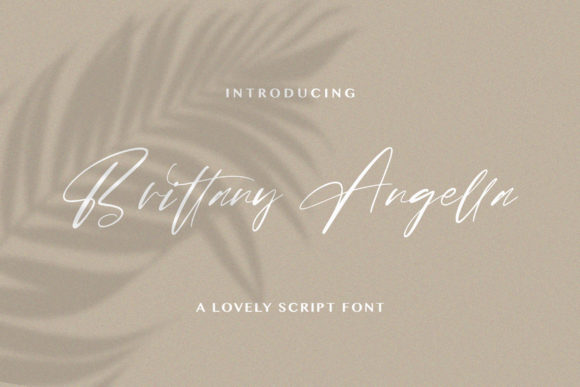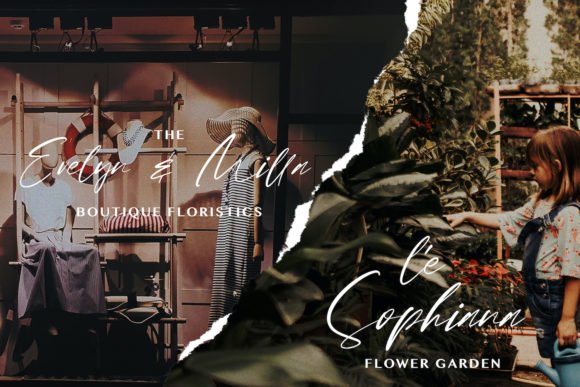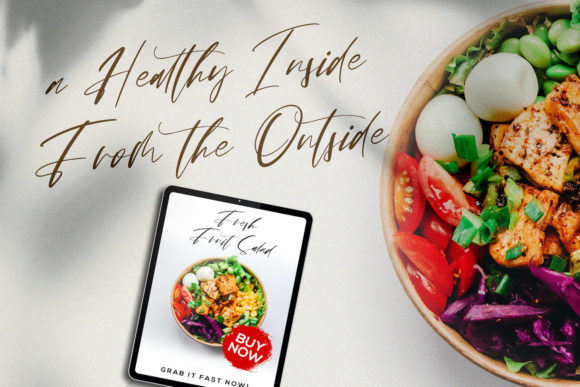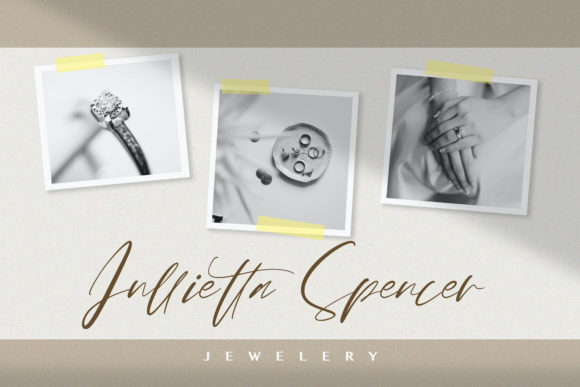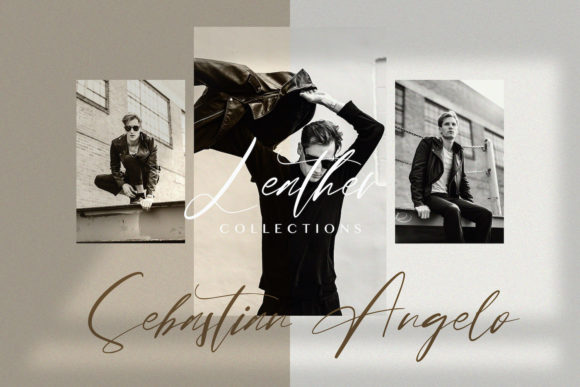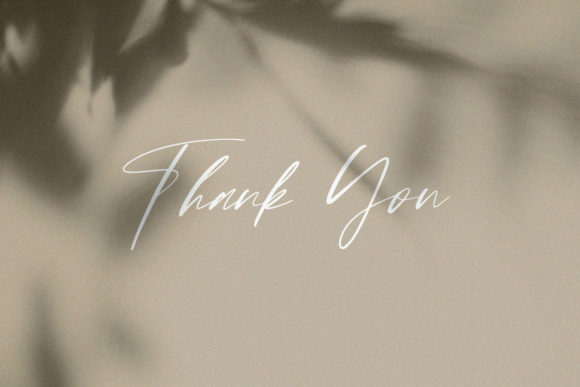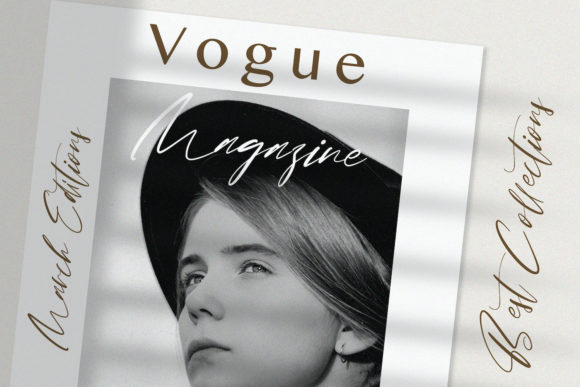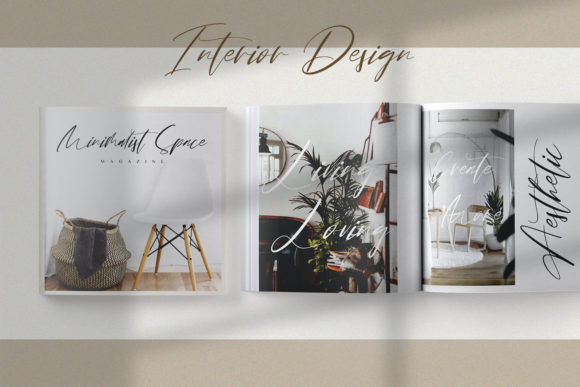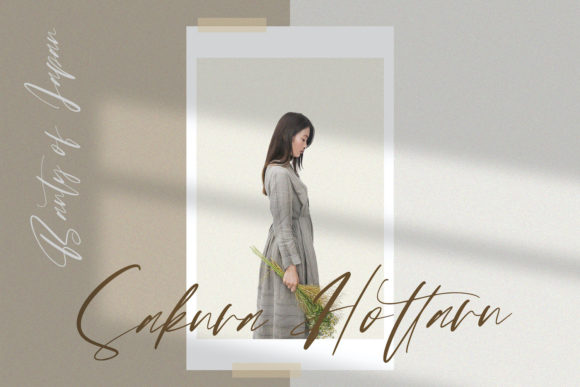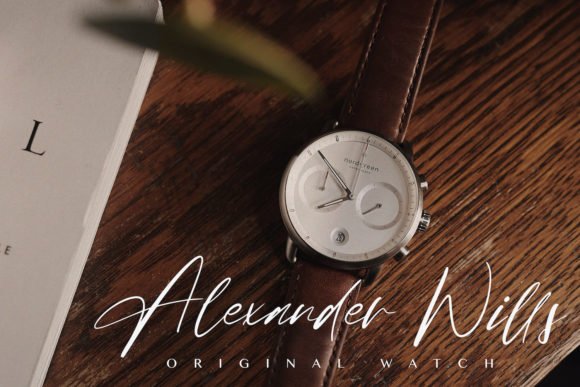
Brittany Angella Font
About Brittany Angella Font
Brittany Angella is a timeless and elegant handwritten font. It looks spectacular on wedding invitations, thank you cards, quotes, greeting cards, logos, business cards and every other design which needs a handwritten touch.